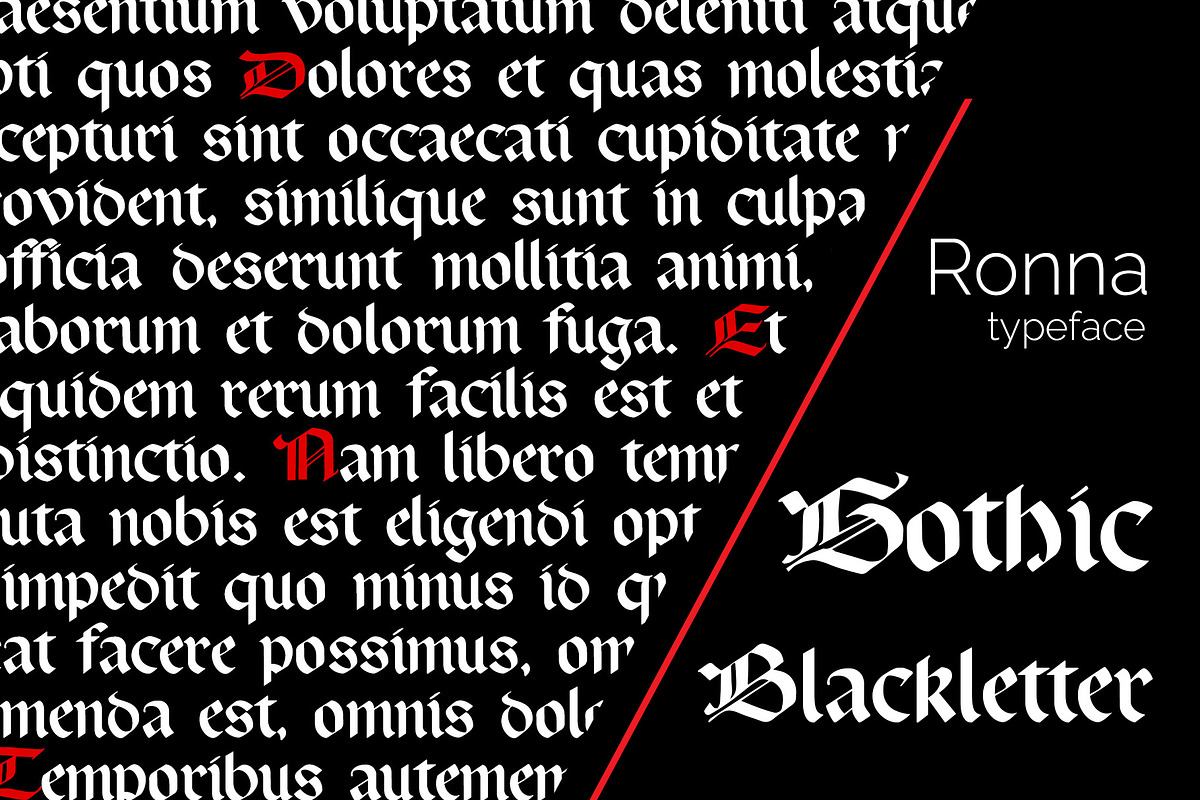
Blackletter Gothic Font Ronna Free Download is a bold and dramatic typeface inspired by traditional medieval calligraphy and gothic lettering. With its sharp angles, intricate strokes, and vintage flair, Ronna is perfect for tattoo designs, band logos, book covers, posters, and projects that demand a strong historical or rebellious aesthetic.
This font delivers powerful visual impact while maintaining legibility. It includes uppercase and lowercase letters, punctuation, multilingual support, and is fully compatible with both Mac and Windows platforms.